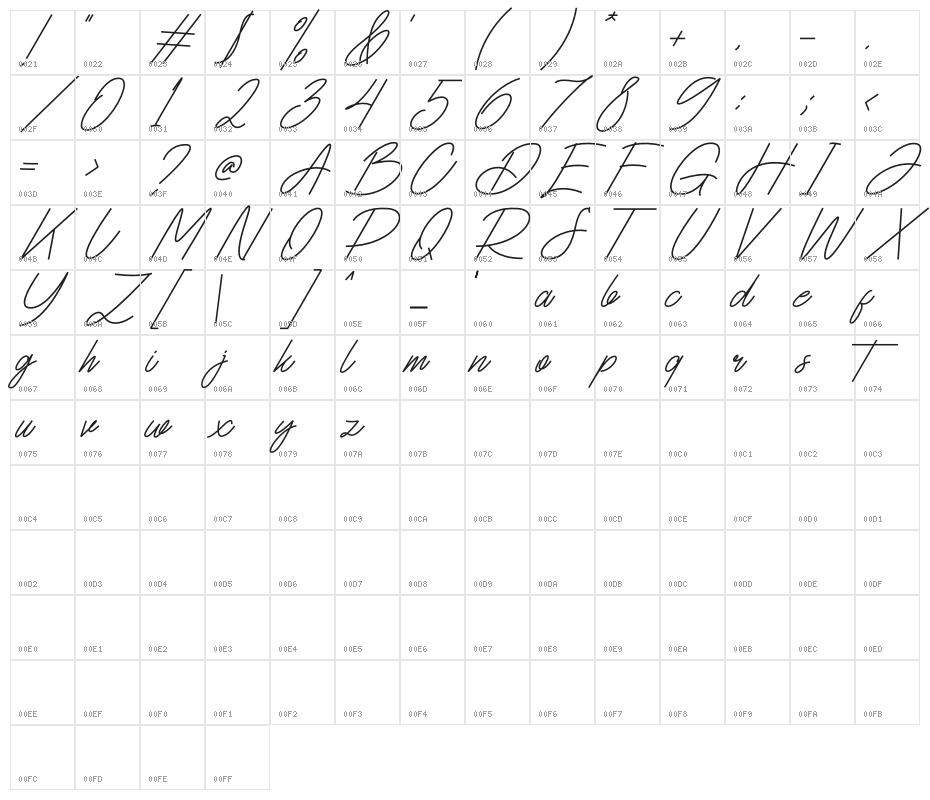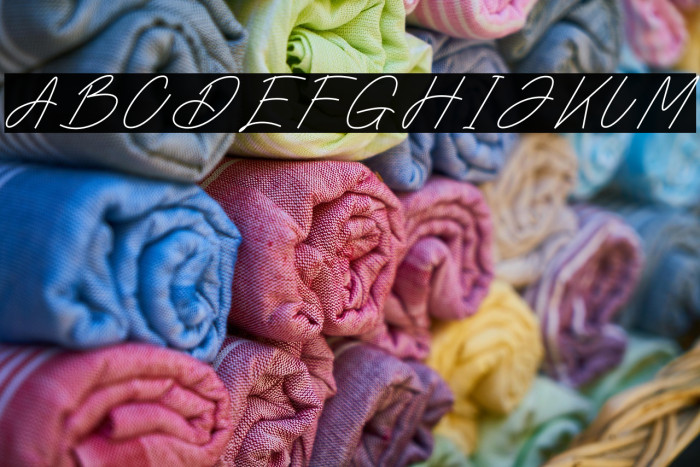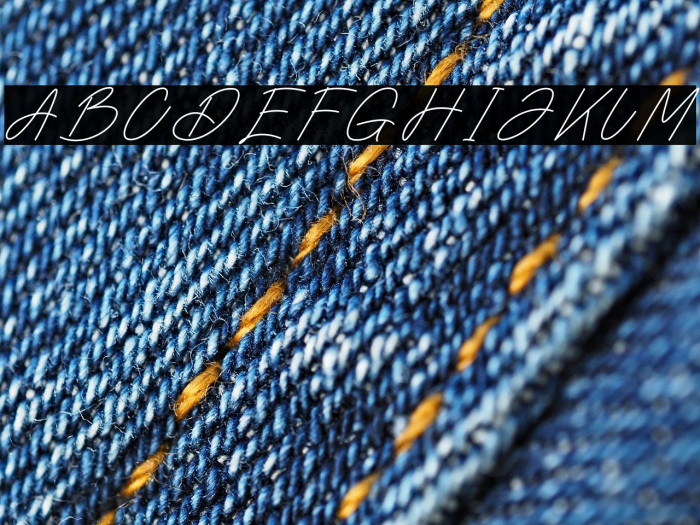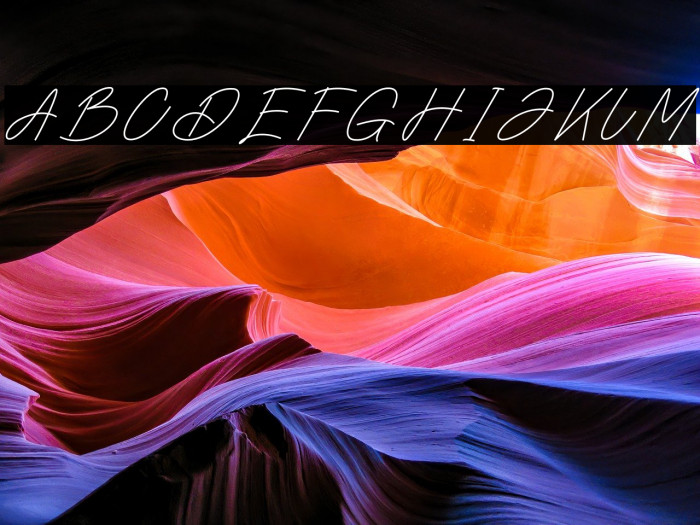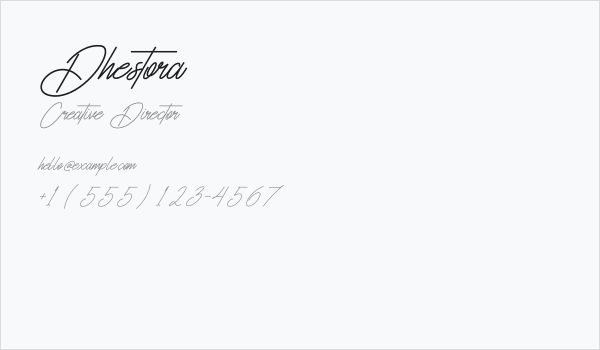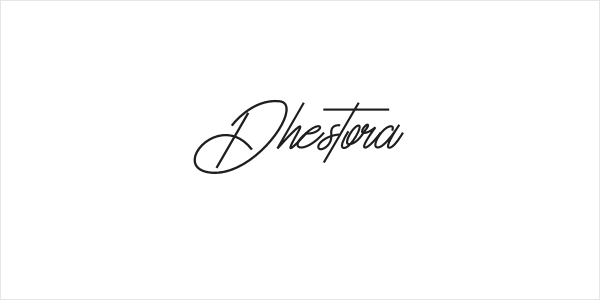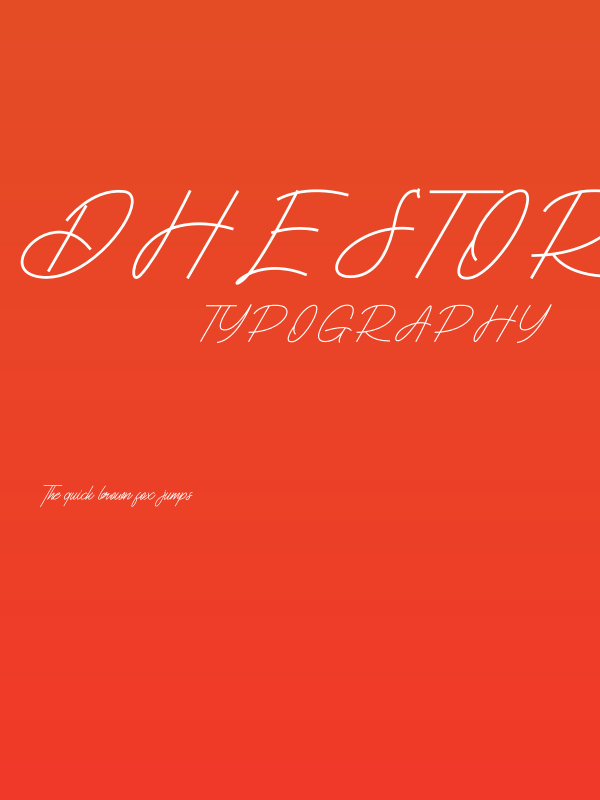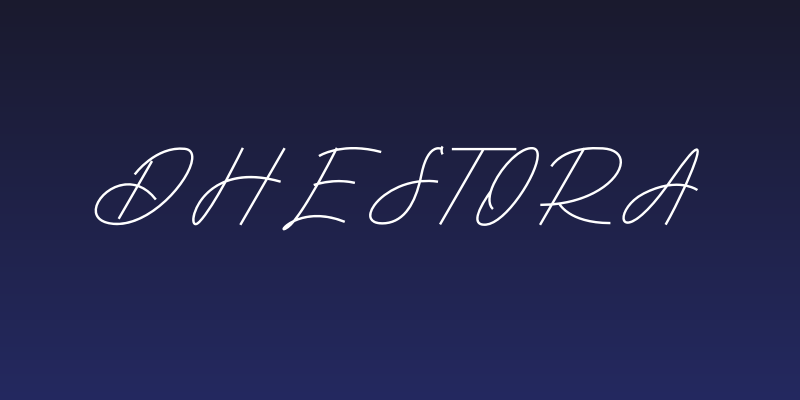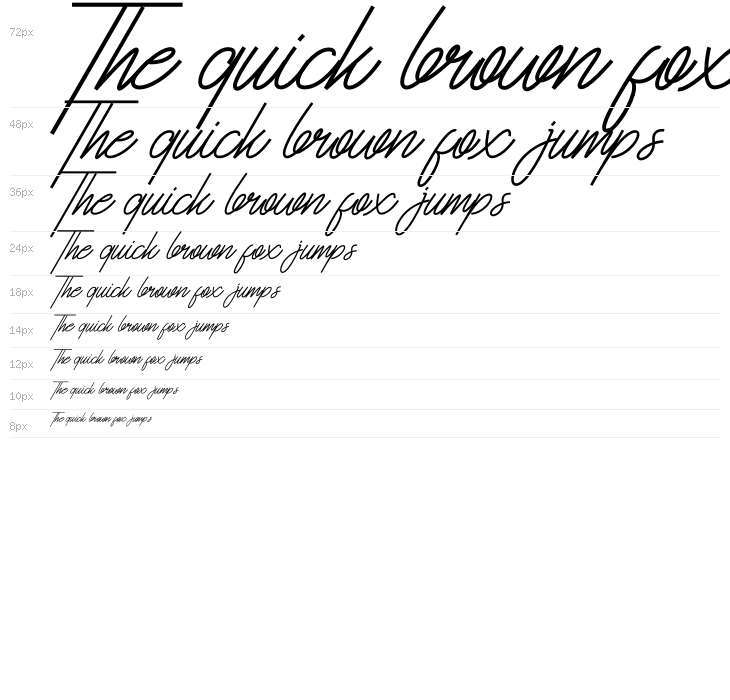
Dhestora Font
Dhestora Description
This font exudes a sophisticated and elegant script style, characterized by its flowing, cursive letterforms. The uppercase letters are slender and elongated, giving a sense of grace and fluidity. The lowercase letters are more pronounced, with a bold and confident appearance, yet they maintain a harmonious balance with the uppercase. The numerals are consistent with the overall style, featuring a sleek and stylish design. Special characters are seamlessly integrated, enhancing the font's versatility. The overall impression is one of refinement and artistic flair, making it suitable for a variety of creative applications.
| Overall Style | Elegant, Artistic |
| Proposed Projects | Ideal for wedding invitations, elegant branding, personal signatures, and artistic projects. |